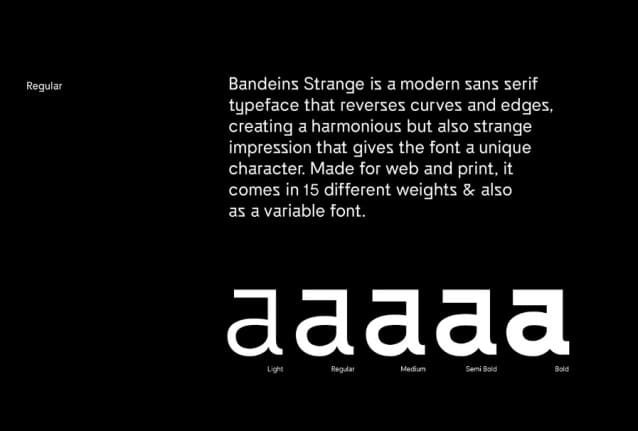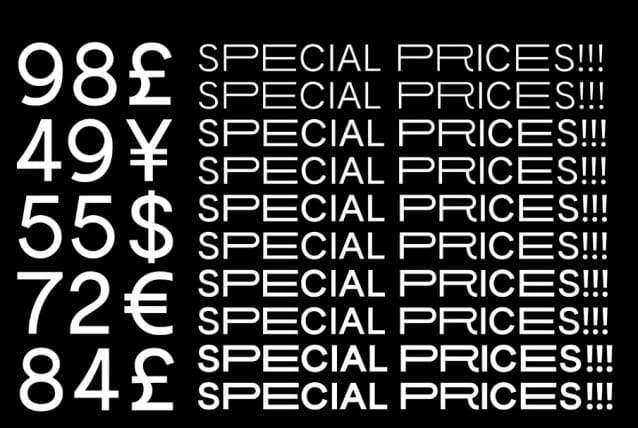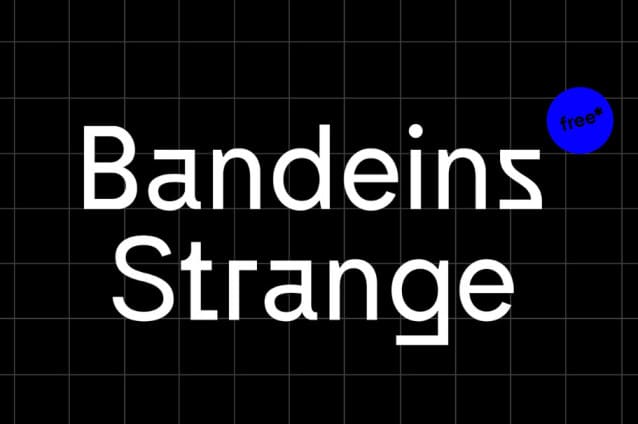
Bandeins Strange Font Family
Bandeins Strange Font Family, is a simple, geometric sans-serif typeface which combines typical geometric characteristics with a slightly curvy character, inspired by early grotesque fonts from the 19th century, but with a modern appearance. The Strange typeface reverses curves and edges, creating a harmonious but also strange impression that gives the font a unique character. The typeface comes with 5 weights, 3 Styles and is also available as a variable font.